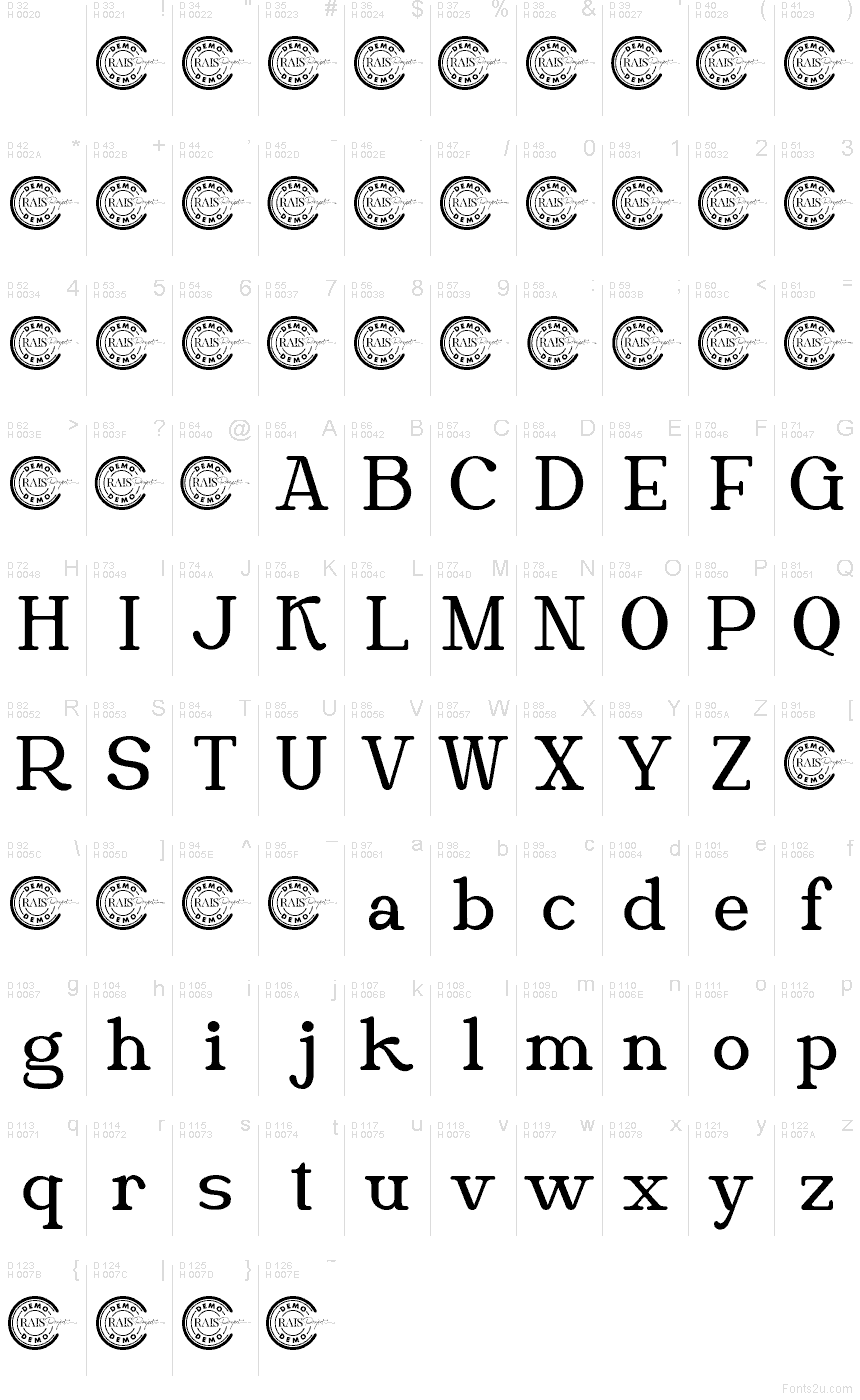
Cheek Flower Demo
Cheek Flower font by RaisProject is a free serif typeface with a sly, storybook charm. Its letters feel hand-inked yet impeccably tidy, with crisp slab-like serifs and little curled flourishes that look almost like petals at the ends of strokes. The overall texture is steady and readable, but those whimsical swashes give it a soft, romantic lift instead of feeling stiff or formal.
Using Cheek Flower, you get a serif that can handle real text while still bringing personality to the page. This free font works beautifully for wedding invitations, boutique branding, book covers, poetry layouts, vintage-style posters, and charming packaging. Try pairing Cheek Flower for headlines with a clean geometric sans for body copy, and let it sit slightly larger than usual so those delicate curls have room to breathe.